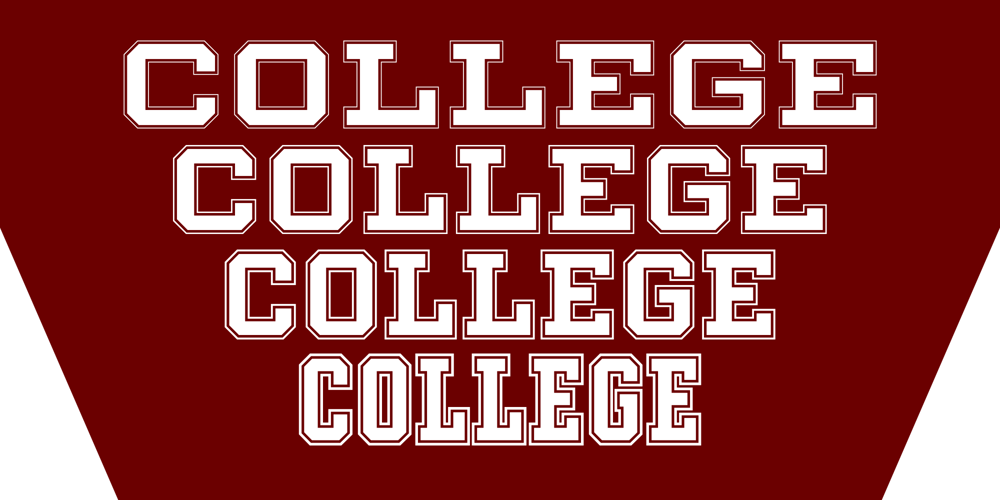
Winner College Font Family was designed by Christoph Koeberlin and published by sportsfonts. Winner College contains 24 styles and family package options. Winner™—Classic athletic aesthetics, finally as a versatile contemporary super family.The latest addition to the Winner™ superfamily adds carefully crafted outlines around the typeface’s shapes, in 6 widths and 4 outline weights.